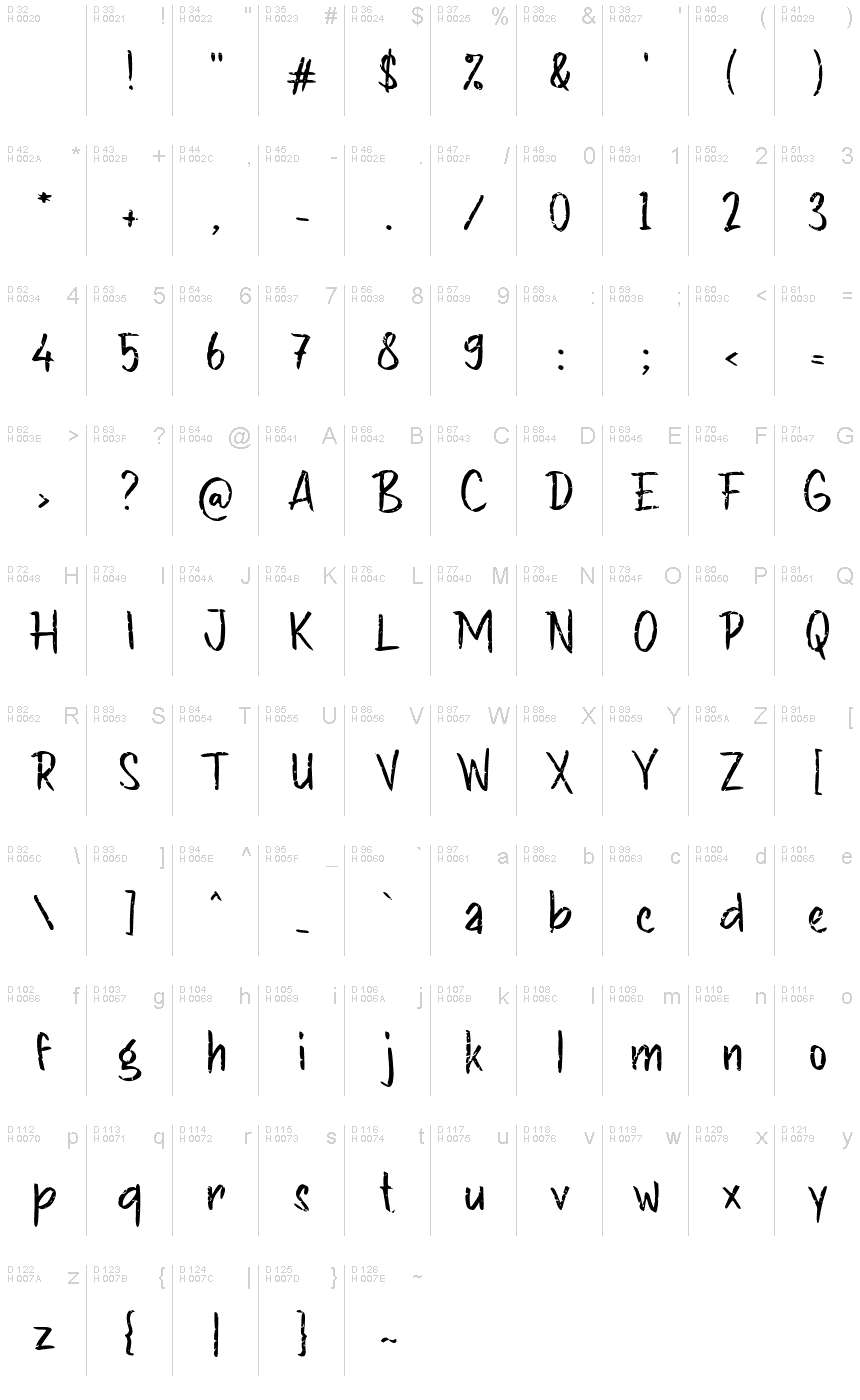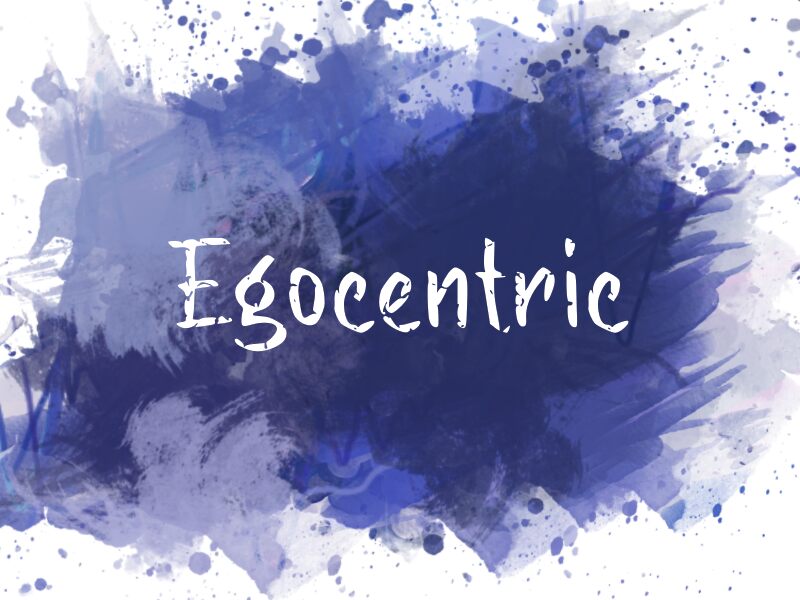
Egocentric
Egocentric, designed by wep, is a captivating brush font that exudes a sense of artistic flair. With its semi-light weight, it strikes the perfect balance between elegance and playfulness.
This font is ideal for various creative projects such as modern calligraphy designs, fashion branding, edgy album covers, and vibrant social media graphics. Its bold strokes effortlessly capture attention while maintaining a touch of sophistication.
Let Egocentric bring your designs to life with its unique fusion of brush strokes and semi-light font weight.
This font is ideal for various creative projects such as modern calligraphy designs, fashion branding, edgy album covers, and vibrant social media graphics. Its bold strokes effortlessly capture attention while maintaining a touch of sophistication.
Let Egocentric bring your designs to life with its unique fusion of brush strokes and semi-light font weight.